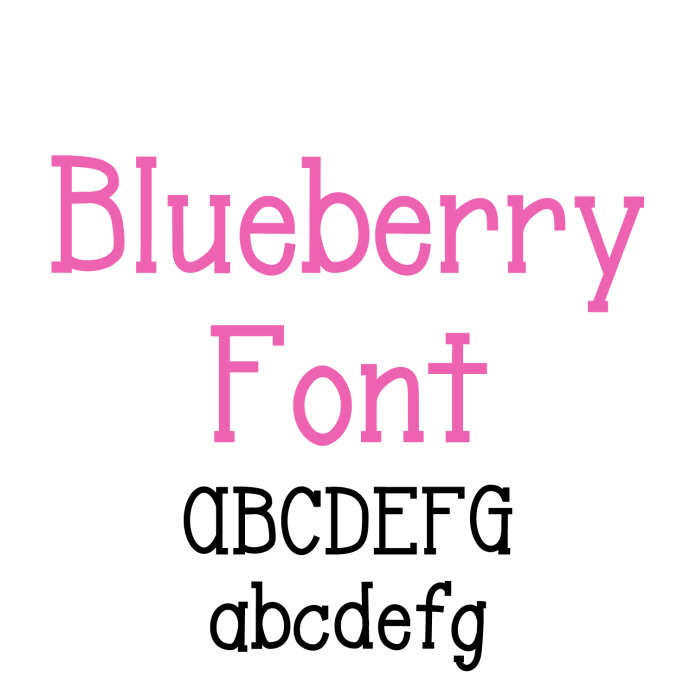
Meet Blueberry Font – a bold and playful handwritten serif font perfect for adding personality and impact to your creative projects! With chunky letterforms and strong serifs, this font is ideal for greeting cards, labels, classroom decor, stickers, quotes, scrapbooking, and kids’ crafts. Blueberry delivers a handcrafted feel with the readability and structure of a serif style, making it great for both fun and functional designs. It cuts beautifully on vinyl, HTV, cardstock, and more. Whether you're designing for school, home, or business, Blueberry Font brings bold charm to every project. Download today and get creating!